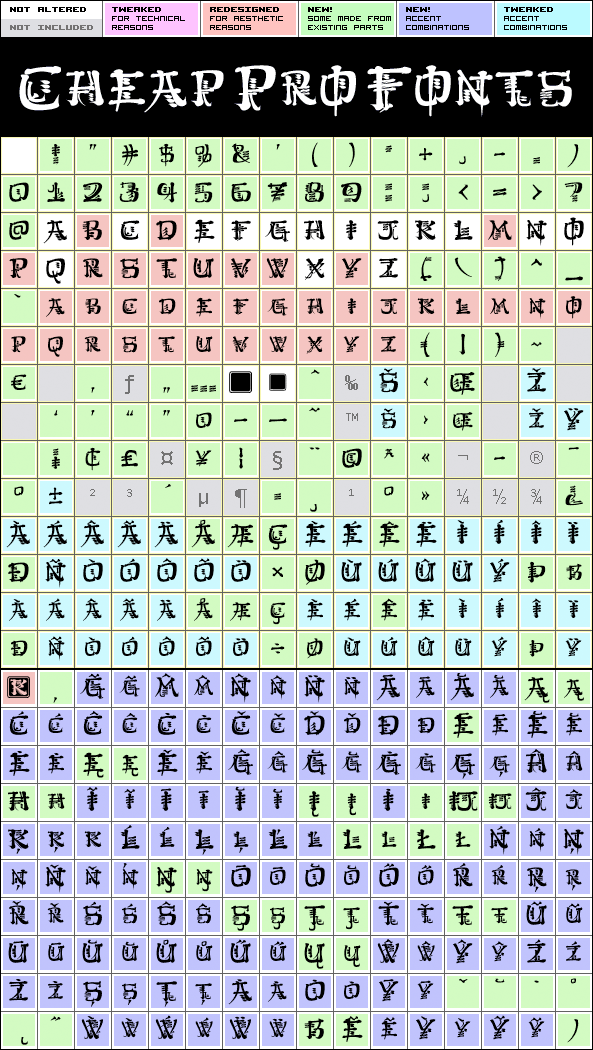
This pearl by Kevin King was the best faux chinese font I've ever come over, and now it can be used for setting themed text and menus in many more languages! :) Kevin King says: "I have said before you know - I can if I want to (Stamp! Scowl!) Cod Chinese of the worst kind, I wanted a "Chinese" font for a project and couldn't find what I wanted. I painted this font with a Chinese brush and imported the resultant mess - it's been a while since I did any Chinese calligraphy - add that to the fact that I don't read or speak Chinese..."
Kingthings Conundrum Pro is a professionally reworked font that contains an extended character set for setting text in 65 languages requiring more than the basic A-Z!